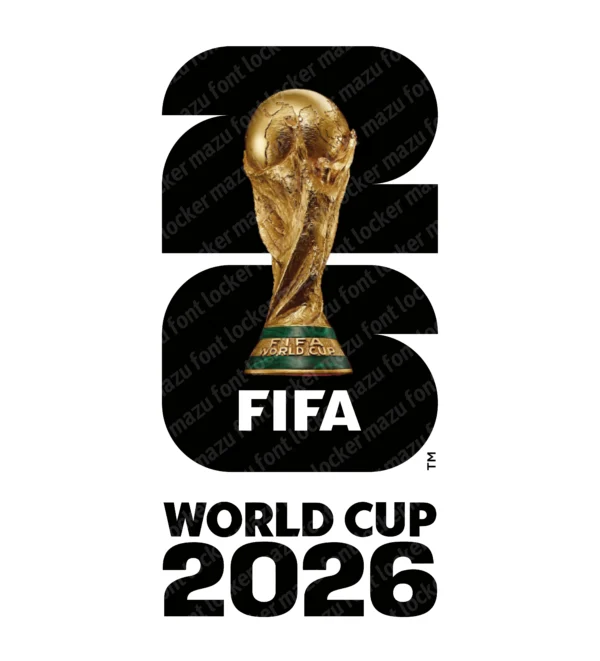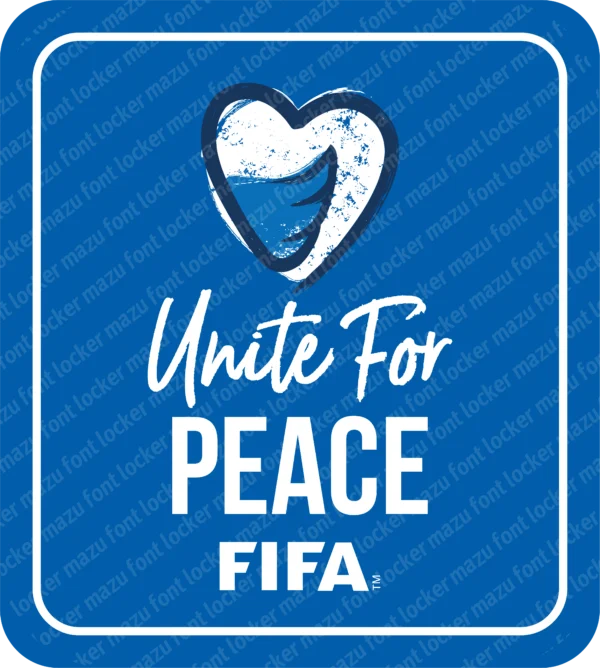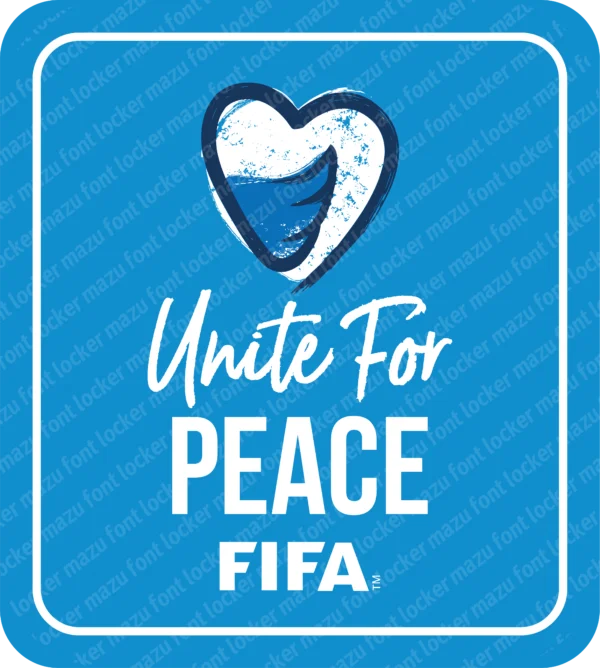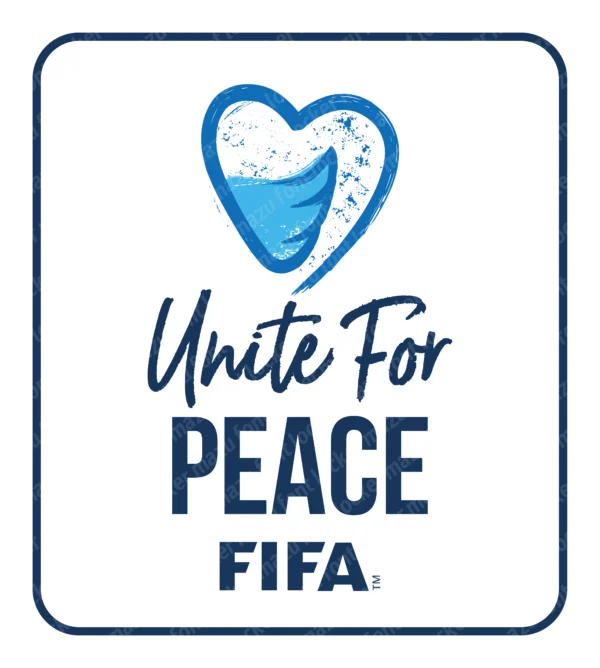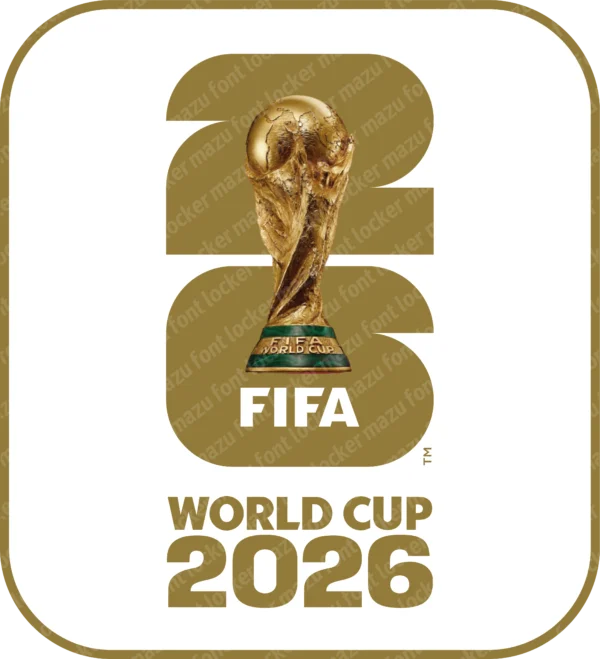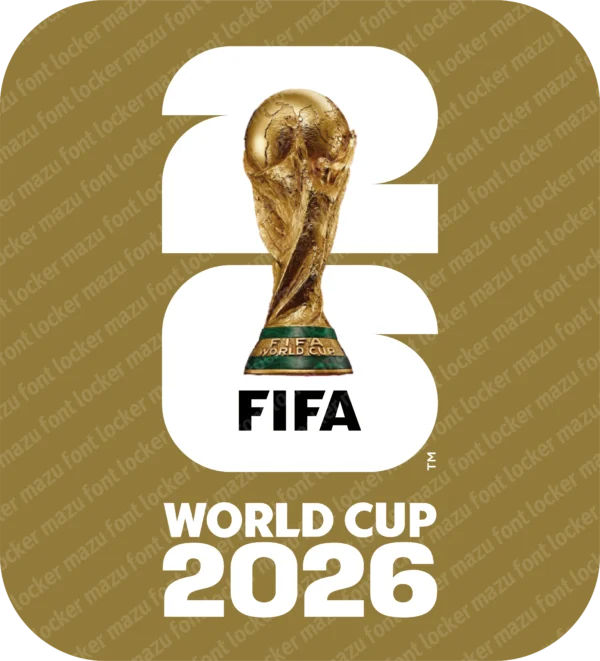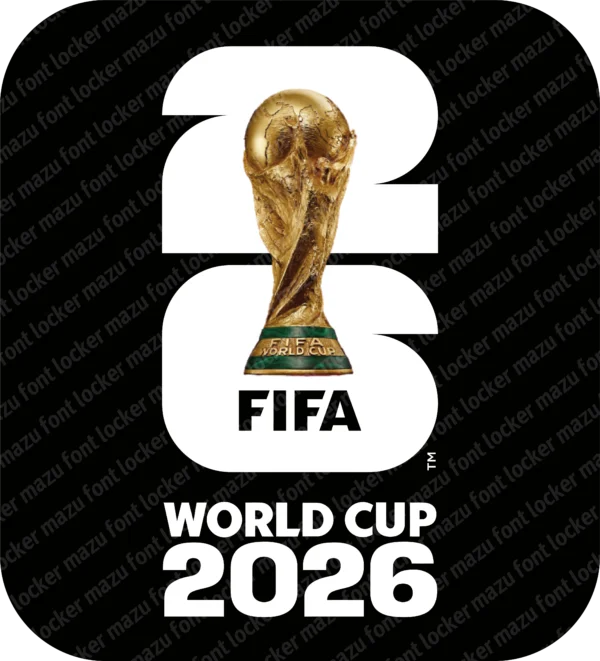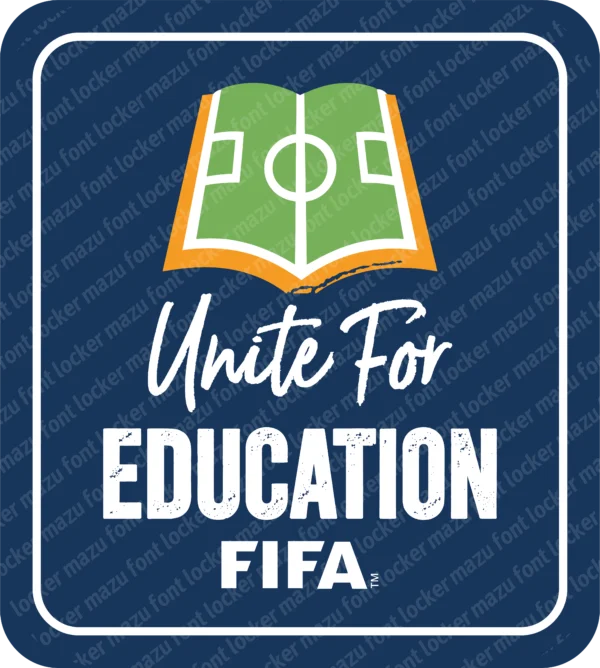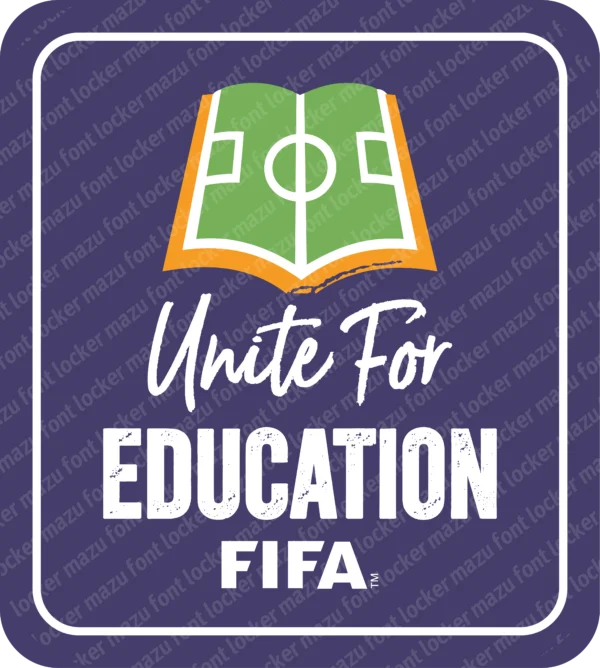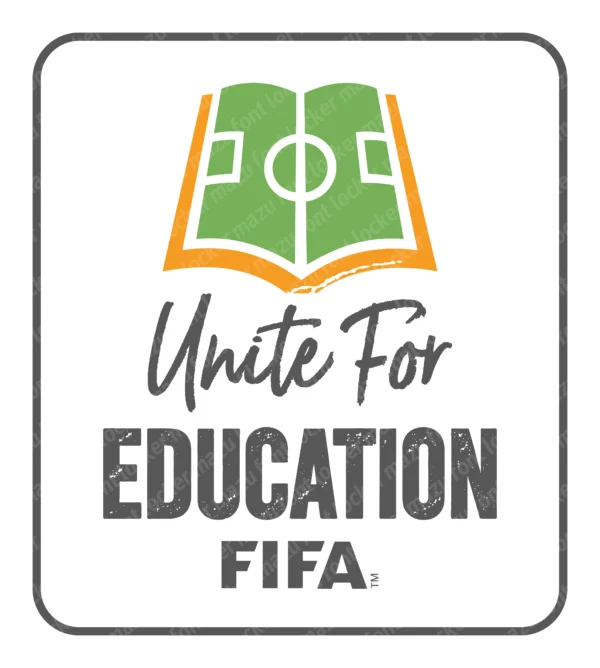
Parches World Cup 2026 Vector Bundle – Incredible Official Style Masterpiece
Parches World Cup 2026 Vector – Authentic FIFA Typeface
The Parches World Cup 2026 Vector is a premium typeface and patch design kit that accurately recreates the official badge lettering, numerals, and typography used in the FIFA World Cup 2026 tournament. This high-quality vector collection captures the bold, modern, and prestigious style that represents the biggest football event on the planet.
Key Visual Identity of the Font & Patches
The letterforms in the Parches World Cup 2026 Vector are bold, contemporary, and highly legible. The strokes feature clean geometric construction with dynamic athletic flair, creating a premium appearance that stands out on patches and jerseys while honoring the spirit of the World Cup.
Number Design & Patch Elements
The numerals feature strong, confident curves and precise edges, delivering excellent scalability and readability across print and digital applications. The kit also includes authentic patch layout guides and crest placement references for professional results.
• Ready-to-use patch templates and badge layouts
• Includes exact patch placement guides used on official kits